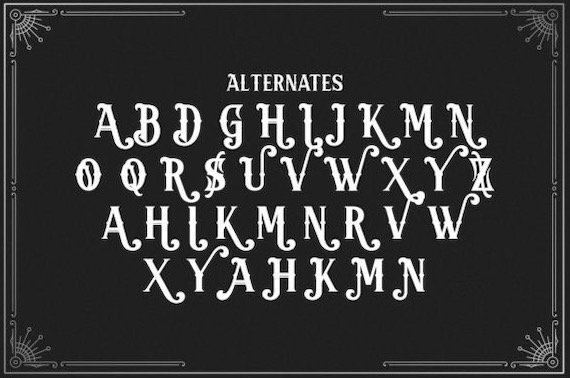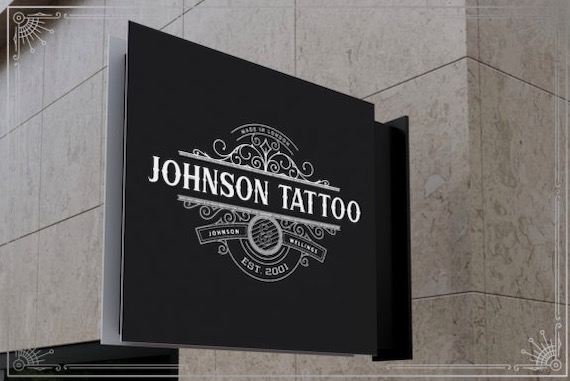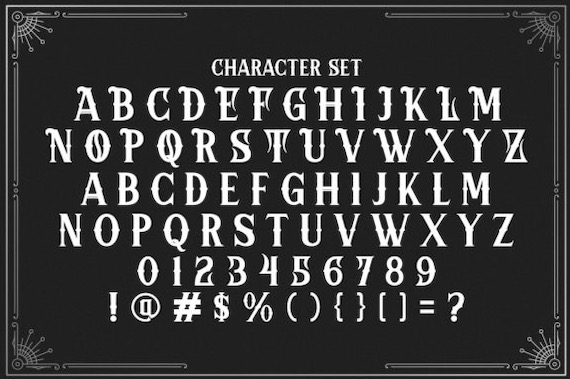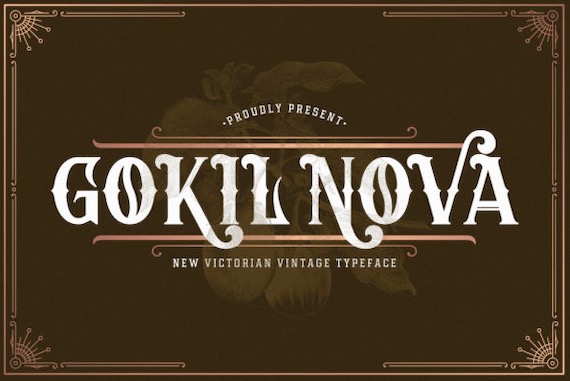
Gokil Nova is a retro futuristic unique decorative blackletter font that is inspired by famous letters of Victorian. This classic font was created and shared by StringLabs along with playfully nostalgic feels. It’s very suitable for logotype, packaging, typography, magazines, packaging, posters, Websites, branding, title, Poster, and more.
Gokil Nova Blackletter Font